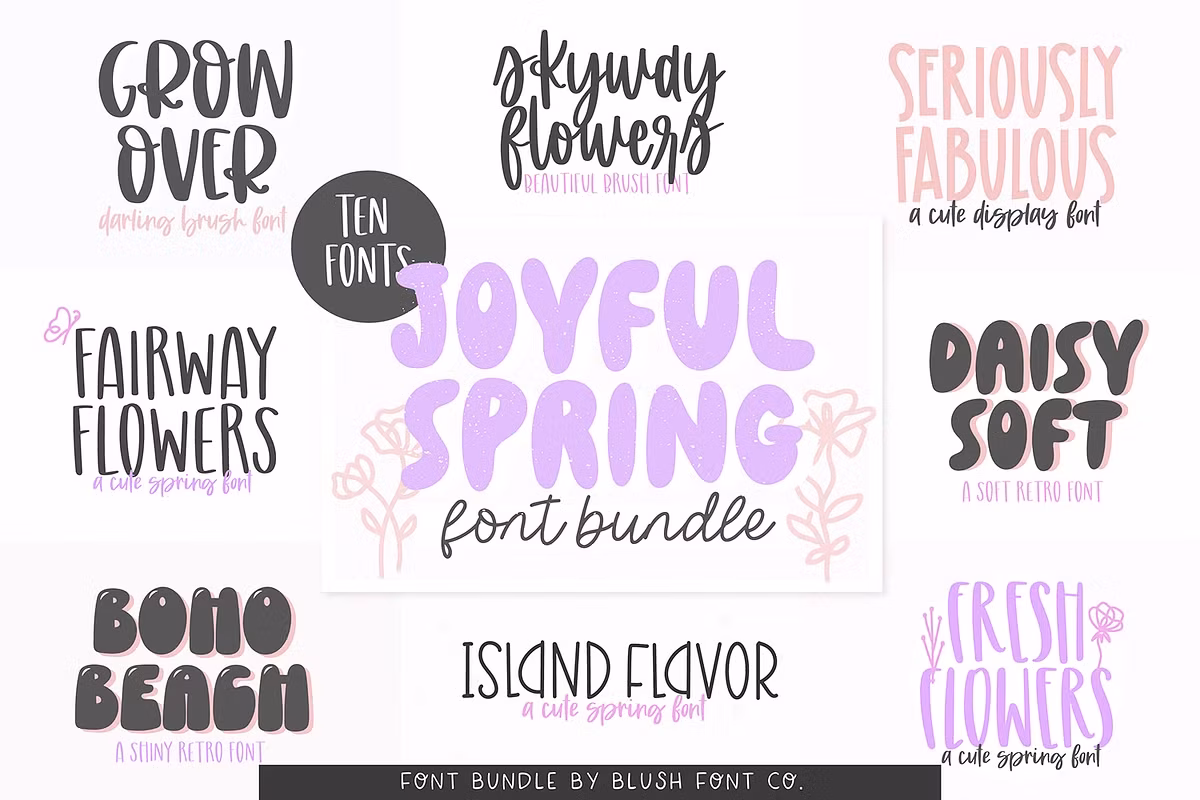
JOYFUL SPRING Brush Font Bundle Free Download is a cheerful and creative collection of hand-brushed typefaces designed to bring freshness and energy to your designs. Bursting with personality, this bundle is perfect for spring-themed projects, greeting cards, product packaging, social media posts, and DIY crafts.
JOYFUL SPRING Brush Font Bundle Free Download features playful brush strokes, natural textures, and a handwritten flair that adds warmth and charm to any layout. Whether you’re designing for seasonal promotions, floral brands, or creative blogs, these fonts offer versatility and a fun, handcrafted vibe.
Each font in the bundle is great for both print and digital use, allowing your designs to bloom across every platform. You’re welcome to test the bundle in personal or demo projects, but a commercial license is required for professional use. Celebrate creativity and color with the JOYFUL SPRING font bundle!